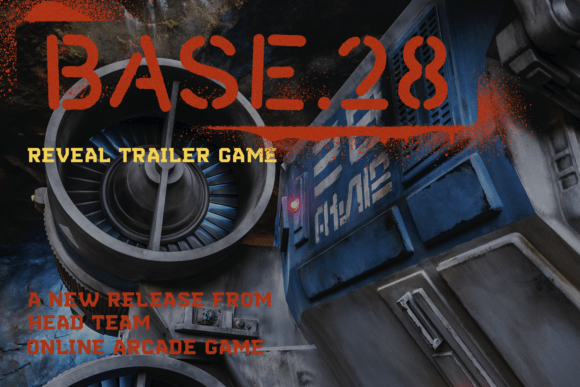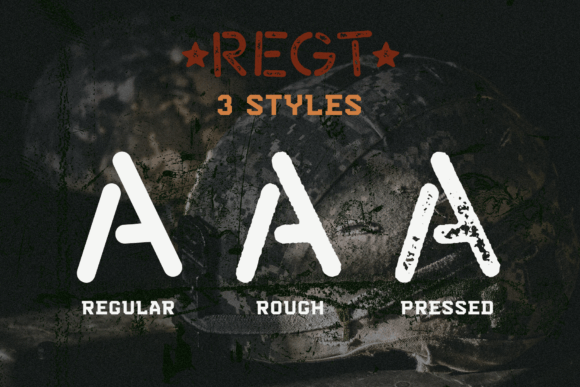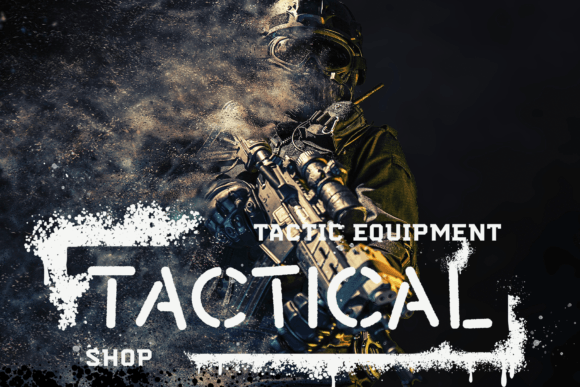
Introduction to Regt Font
Regt is a powerful and dynamic display font that commands attention with its bold, striking design.
Its sharp lines and dramatic curves create a sense of energy and intensity that’s perfect for making a statement Whether you’re designing a poster, logo, or other impactful projects, this stunning font will leave a lasting impression.
Key Features of Regt Font